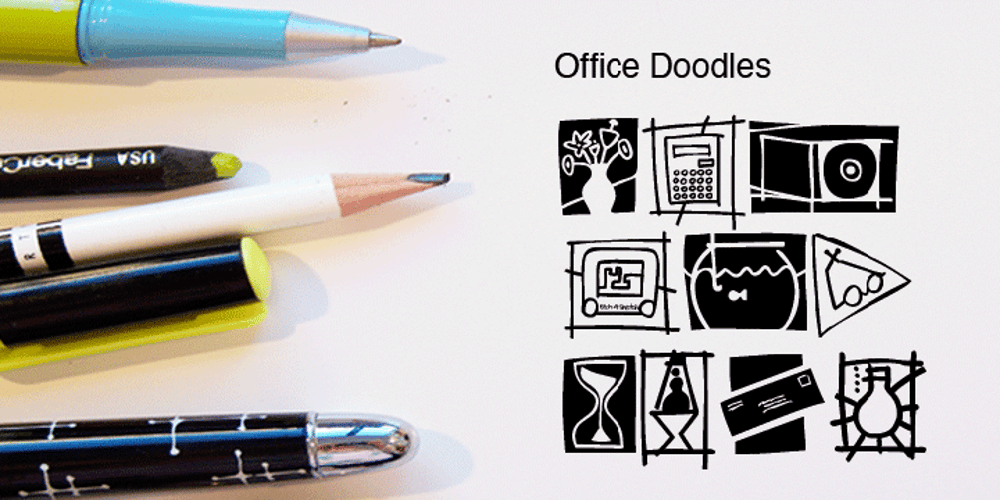
Office Doodles
Office Doodles font
Office Doodles Font Family was designed by Rae Kaiser and published by Outside the Line. Office Doodles contains 1 styles and family package options. Fun, little illustrations in line and reverse of what one finds in an office– or at least my office. See Food Doodles for more matching little drawings.